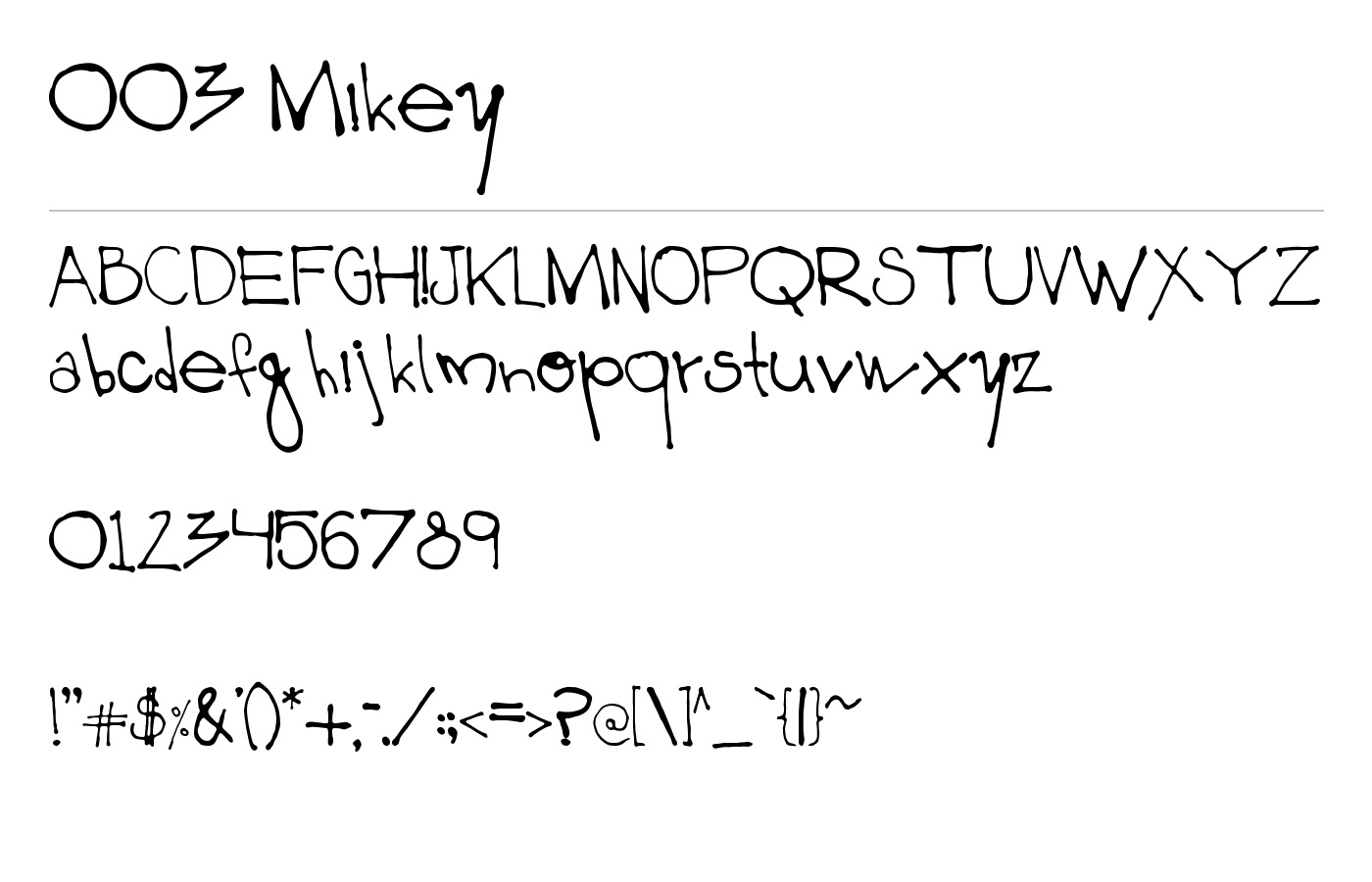
003 Mikey Font is a quirky, hand-drawn sans serif typeface with a casual and playful character. Its irregular stroke widths, tall and thin letterforms, and unique details like elongated descenders give it a whimsical, informal feel perfect for creative projects, children’s designs, or artistic branding that aims to convey friendliness and originality. This font works well in headlines, logos, and short texts where a fun, personal touch is desired.
003 Mikey Font
About 003 Mikey Font